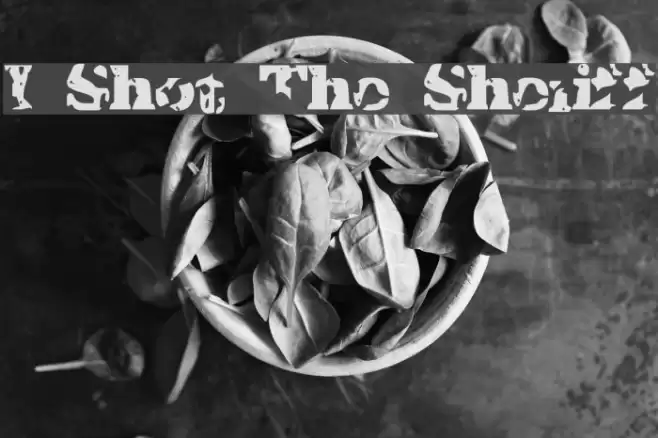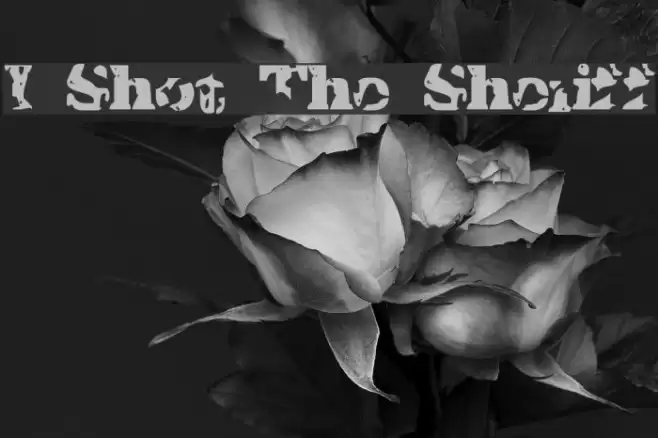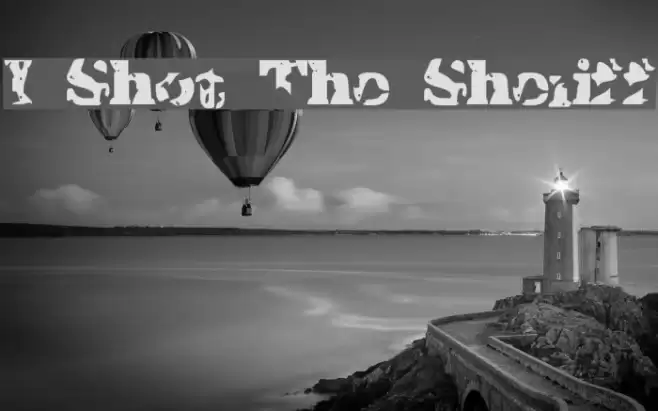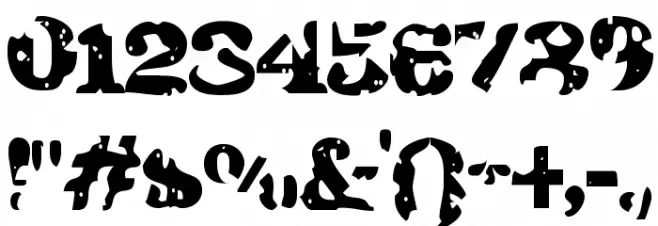
I Shot The Sheriff Font
I Shot The Sheriff Description
This font features a bold and rugged design with a distressed, grunge-like appearance. The characters are heavily stylized with irregular edges and a textured look, reminiscent of worn-out or eroded surfaces. The uppercase and lowercase letters maintain a consistent style, with each character exhibiting unique cuts and shapes that add to the overall chaotic aesthetic. Numbers and special characters follow the same design principles, ensuring a cohesive look across all glyphs. This font is ideal for projects that require a strong, impactful visual presence, such as posters, album covers, or themed events.
A bold, distressed font with a rugged, grunge-like appearance from Uncategorized fonts.
- Proposed Projects: Ideal for posters, album covers, themed events, or any project needing a strong, impactful visual presence.